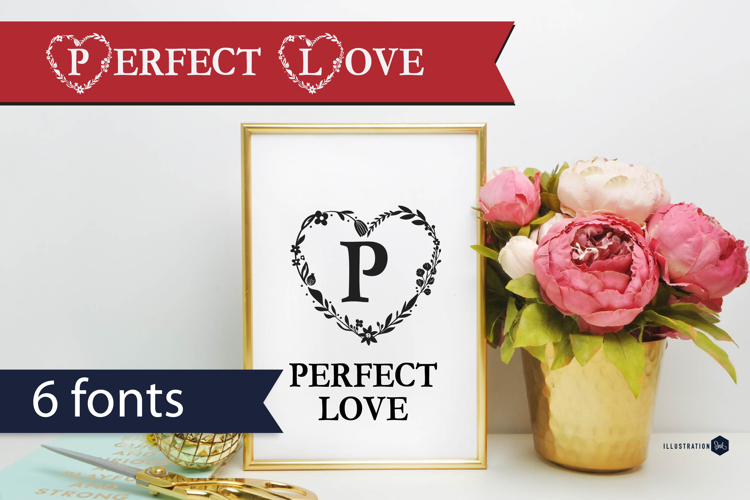
PN Perfect Love Font Family
This hand-crafted font is pretty, intricate, monogram font features a floral, heart frame around each uppercase letter. There are 6 variations included.